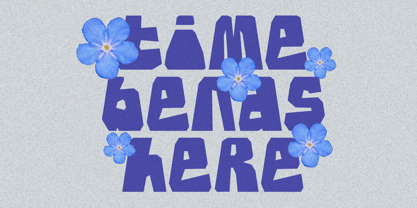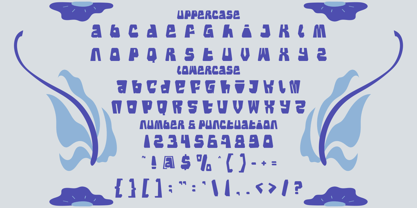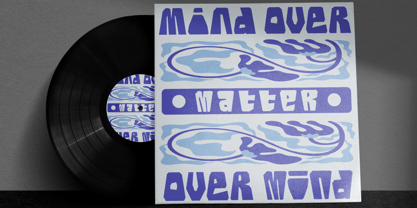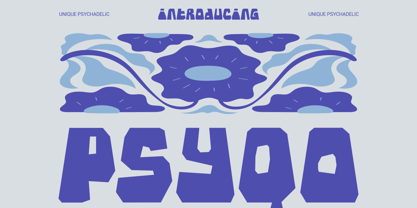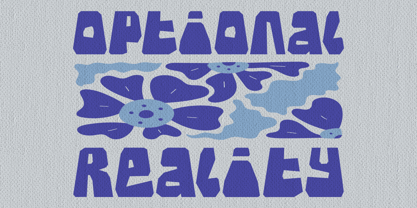
Psyqo
by Shanaf
The Psyqo Font Family was designed by Yesie Erma Yunita and published by Shanaf. Psyqo contains 1 styles. More about this family
Psyqo Unique Psychadelic is a bold display typeface with a strong experimental attitude. The letterforms feature thick, blocky structures with irregular geometric cuts. Each character shows sharp angles, asymmetric counters, and unconventional proportions. The strokes feel solid and compact, creating a heavy visual impact. The height appears slightly condensed, which enhances density in headlines. Angular terminals and carved inner shapes add a handcrafted psychedelic touch. The overall style blends retro psychedelic aesthetics with modern graphic boldness. Psyqo Unique Psychadelic works perfectly for music branding, creative studios, and experimental product identities. It brings strong character to logos, album titles, event posters, and statement headlines. This display font communicates a trippy, expressive, and rebellious mood. The distorted geometry gives each word a dynamic rhythm and visual movement. It suits psychedelic themes, indie music projects, art festivals, and alternative brands. Designers can use it for logo systems, packaging titles, promotional ads, and poster layouts. The bold construction keeps readability clear at large sizes. It also performs well for book covers, magazine titles, stickers, invitation cards, and film titles. Psyqo Unique Psychadelic helps brands build a daring and memorable identity. The complete character set includes uppercase, lowercase, numbers, and punctuation for versatile design exploration.
Designers: Yesie Erma Yunita
Foundry: Shanaf